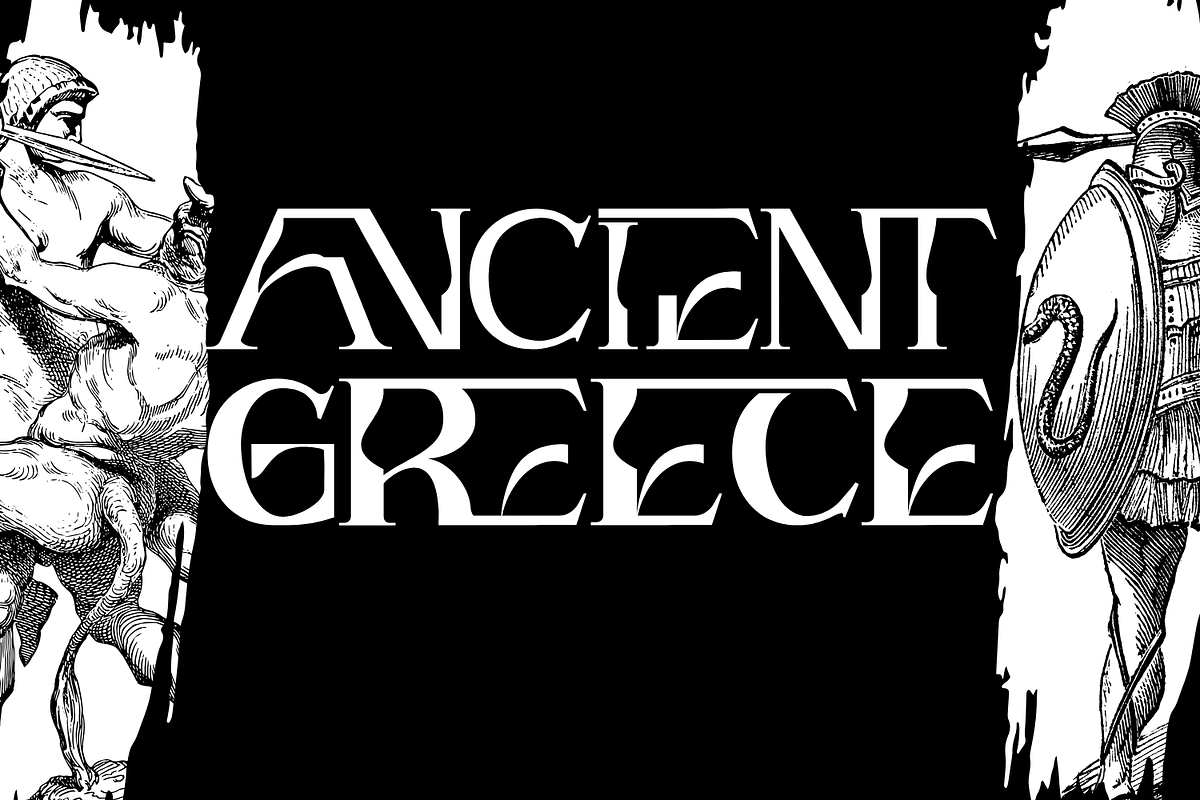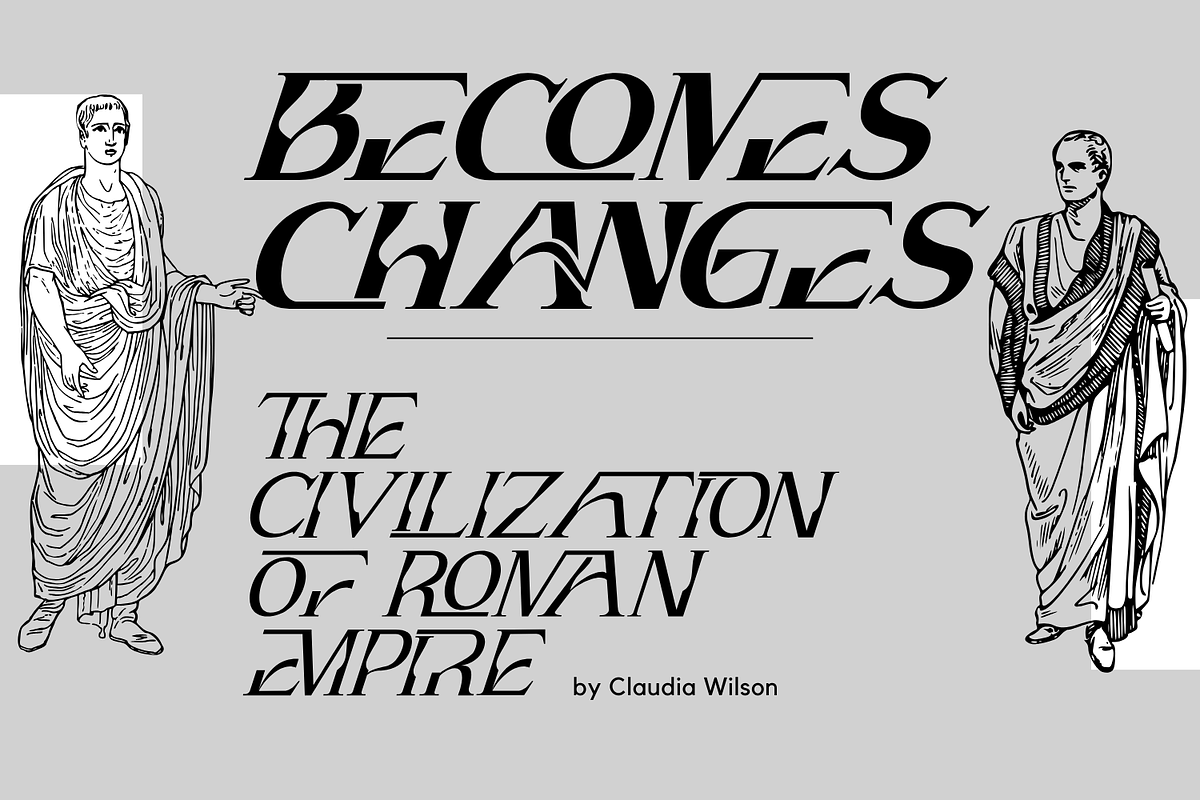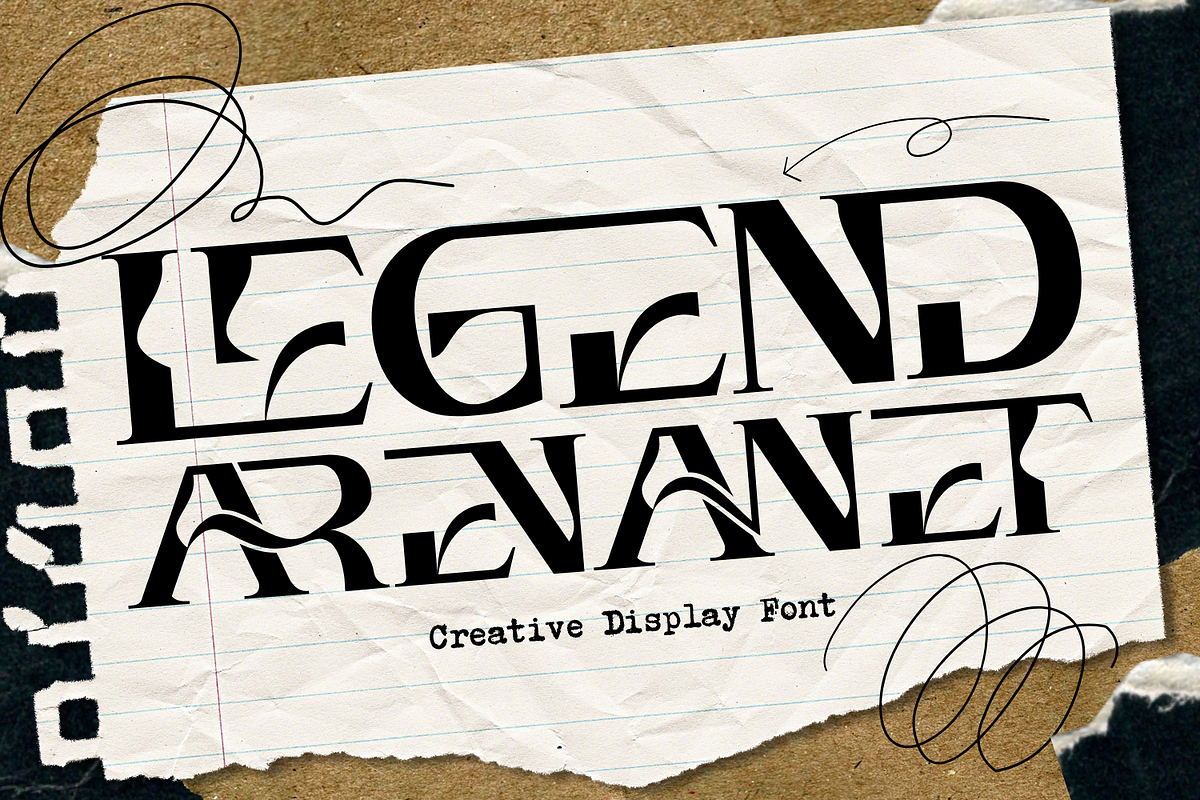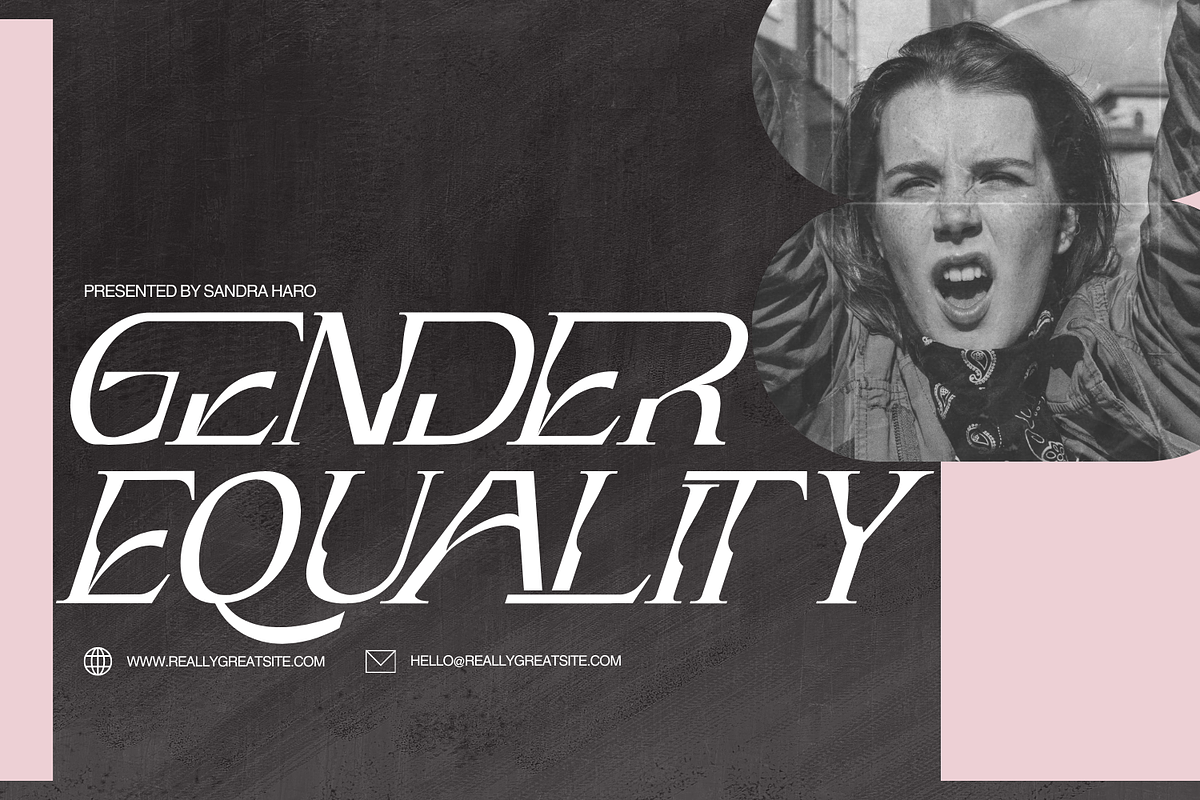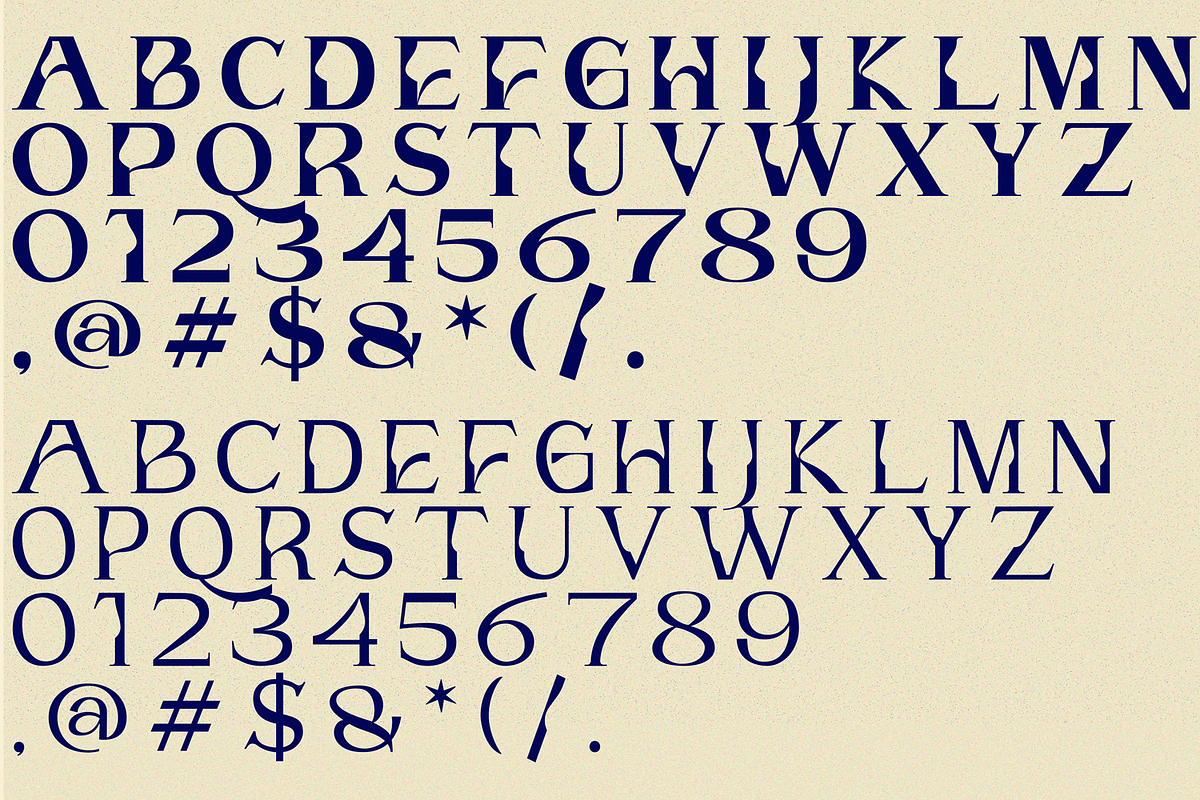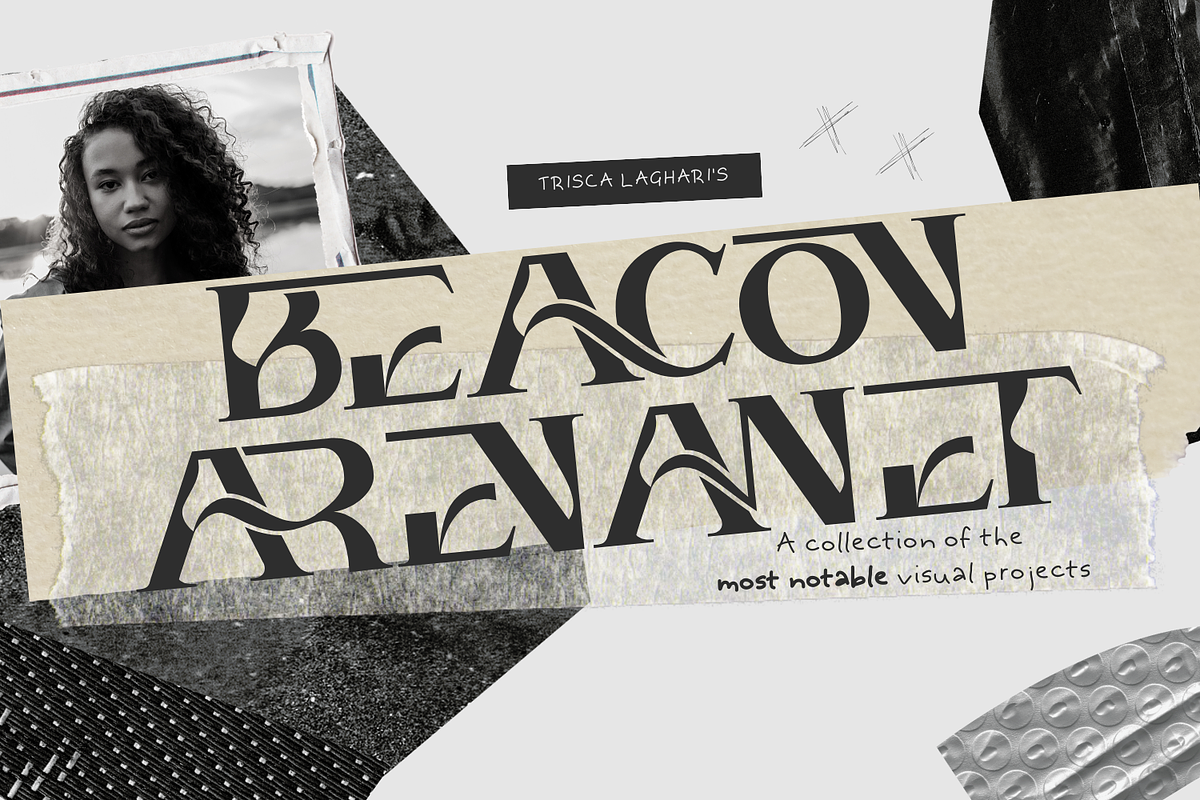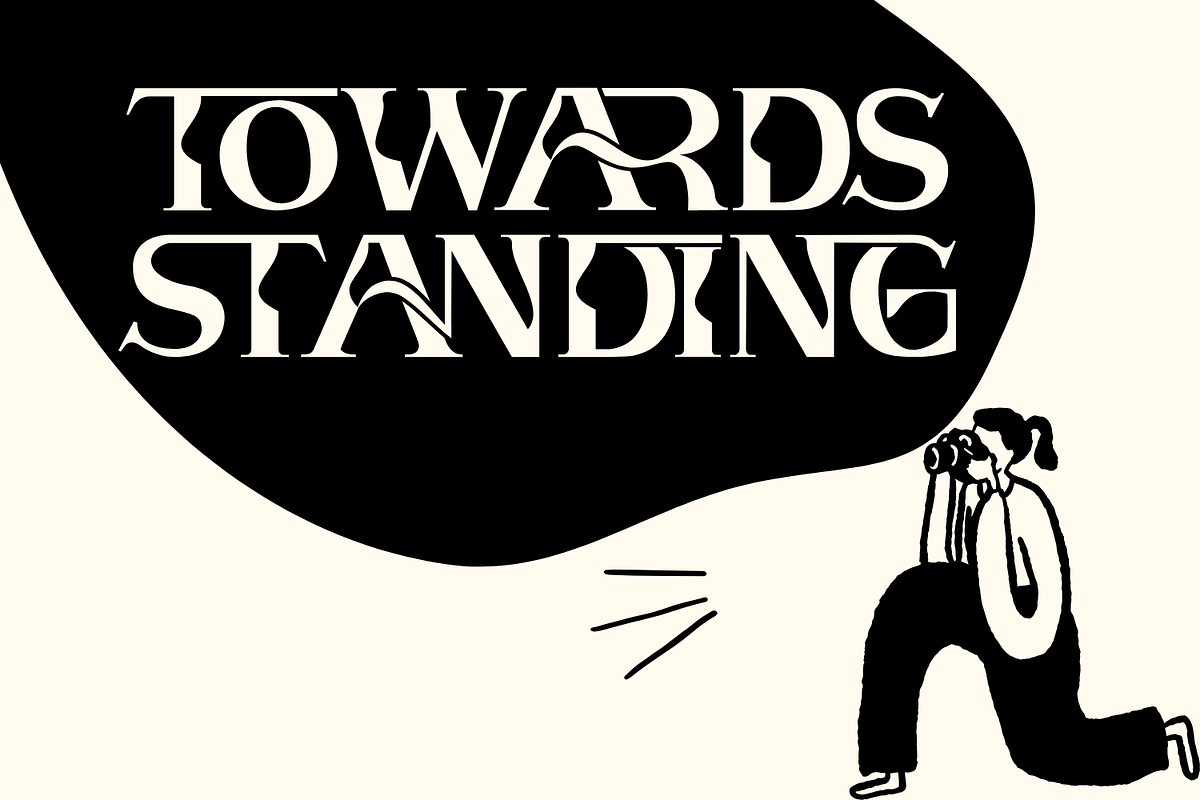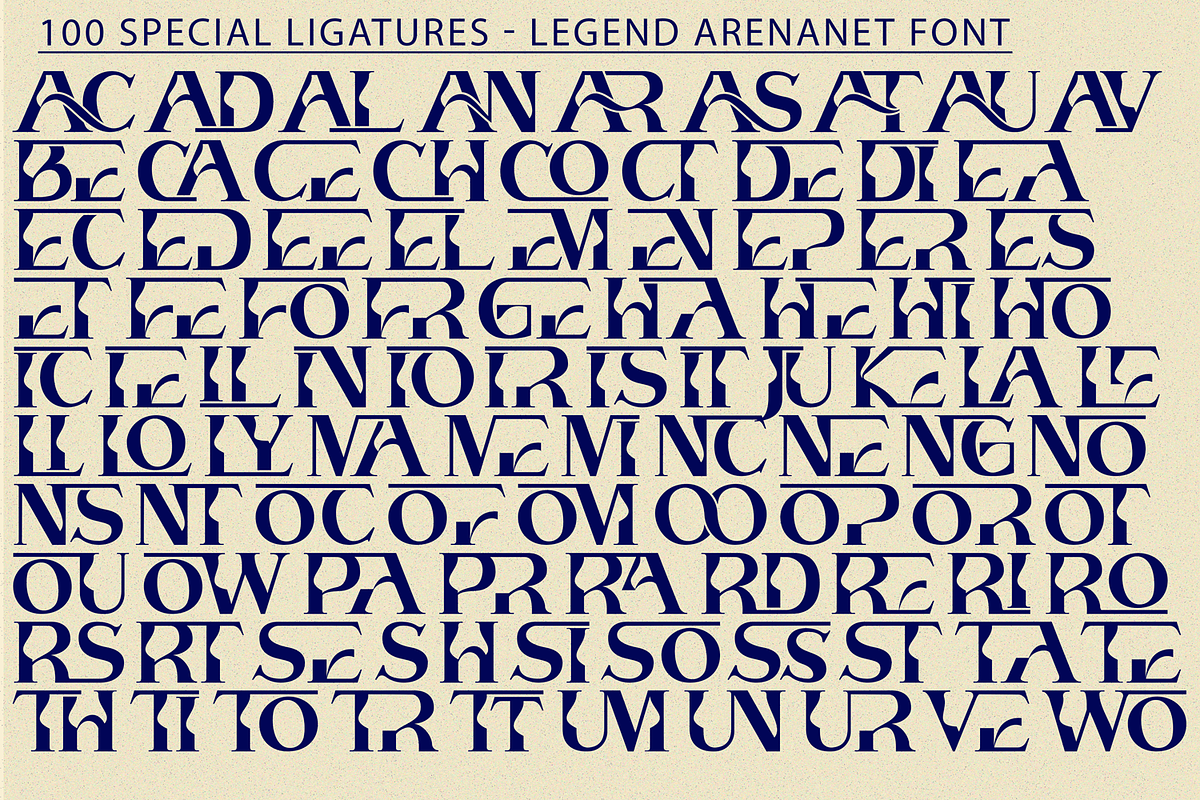
Legend Arenanet Font
Legend Arenanet Font is a brand new display font, the elegant modern font creates a unique design and is sure to steal the eye of the design target audience. Besides being unique, the font also has a luxury simple character that makes the design charming and luxurious. With contrast lines & curves it will give your design that chic & modern appeal you are looking for. It is perfect for logos, branding, posters, social media & all other creative projects.
Legend Arenanet was built with OpenType features and includes 100 ligatures, alternate, numbers, punctuation, and it also supports other languages.
AC AD AL AN AR AS AT AU AV BE CA CE CH CO CT DE DI EA EC ED EE EL EM EN EP ER ES ET FE FO FR GE HA HE HI HO IE IC IL IN IO IR IS IT JU KE LA LE LI LL LO LY MA ME MI NC ND NE NG NO NT NS OC OF OM ON OO OP OR OT OU OW PA PR RA RD RE RI RO RS RT SE SH SI SO SS ST TA TE TH TI TO TR TT UM UN UR VE WI WO